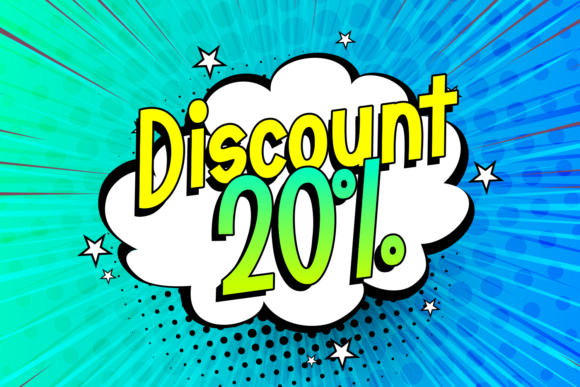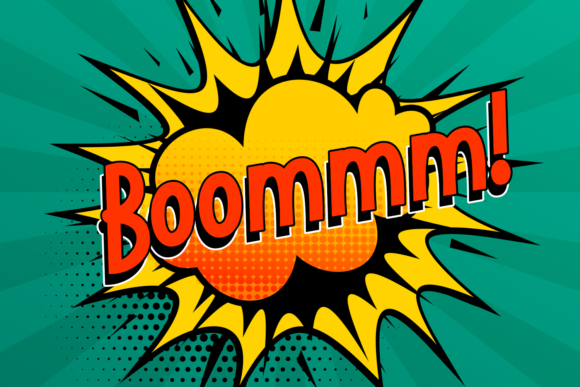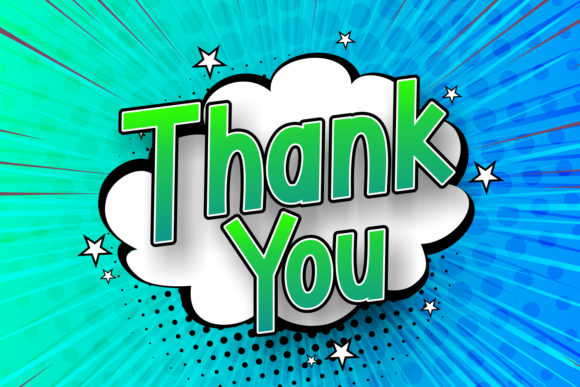
Unleash Your Creativity with Boosent Font
Have you ever found yourself staring at a blank page, waiting for inspiration to strike? We’ve all been there – the creative block, the blank slate, the daunting task of bringing a new idea to life. But what if we told you that there’s a secret ingredient to make your designs truly pop? Enter the Boosent Font, a charming and playful display font that will add a dash of whimsy to any project.
This delightful font is more than just a pretty face – it’s a game-changer for designers looking to add a personal touch to their work. With Boosent Font, you’ll be able to breathe new life into your designs, making them stand out from the crowd and leaving a lasting impression on your audience. Whether you’re a seasoned pro or just starting out, this font is sure to become your new best friend.
Key Features of Boosent Font
- Font Family: Boosent is a modern sans-serif font family designed for digital use.
- Font Size: Boosent is designed to be highly legible at various font sizes, ranging from 8pt to 72pt.
- Resolution: Optimized for high-resolution displays, including Retina and 4K screens, with clear and crisp rendering at 300 DPI and above.
- Unique Characteristics: Boosent features a unique blend of geometric and organic shapes, resulting in a clean, modern aesthetic with a touch of personality.
- Character Set: Boosent includes a comprehensive character set, covering Latin, Cyrillic, and Greek alphabets, as well as punctuation and symbols.
Boosent Font Review
As a designer, I was excited to dive into the Boosent Font and see what it has to offer. Here’s my honest review:
- The Boosent Font has a unique and modern aesthetic that’s perfect for digital products and branding.
- The font’s high contrast and legibility make it ideal for body text and headings.
- The font family includes a range of weights and styles, giving designers plenty of options for customization.
- The Boosent Font may not be suitable for print projects due to its digital origins.
- The font’s unique aesthetic may not appeal to everyone, and some users may find it too trendy or overused.
- The font family is relatively small compared to other font families, which may limit its versatility.
The Boosent Font is a solid choice for digital designers looking for a modern and unique font family. While it may have some limitations, its strengths make it a great addition to any design project.
Tips for Getting the Most Out of Boosent Font
Boosent Font is best used for creative and artistic projects, such as:
- Typography-based art
- Branding materials
Boosent Font is commonly used in:
- Graphic design
- Web design
- Print materials
Alternatives to Boosent Font
Great Vibes is a modern calligraphy font ideal for creating a relaxed, casual atmosphere in your designs. It features beautiful flowing lines and subtle imperfections, making it perfect for titles, headings, and quotes.
Comparison to Boosent Font: While Boosent Font has a more elegant, sophisticated feel, Great Vibes has a more laid-back, friendly vibe. Great Vibes is better suited for designs that require a more casual, approachable tone.
Pacifico is a beautiful, elegant script font perfect for creating a sense of luxury and sophistication in your designs. It features soft, flowing lines and a classic feel, making it ideal for titles, headings, and branding materials.
Comparison to Boosent Font: Pacifico has a more refined, high-end feel compared to Boosent Font. While Boosent Font has a more subtle, understated elegance, Pacifico is more dramatic and attention-grabbing.
Alex Brush is a elegant, handwritten font perfect for creating a sense of warmth and personality in your designs. It features beautiful, flowing lines and a classic feel, making it ideal for titles, headings, and quotes.